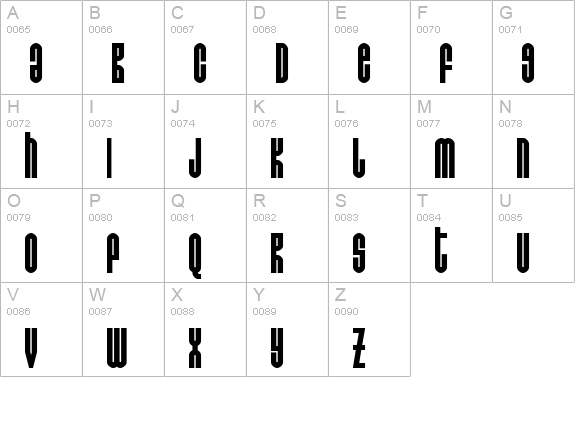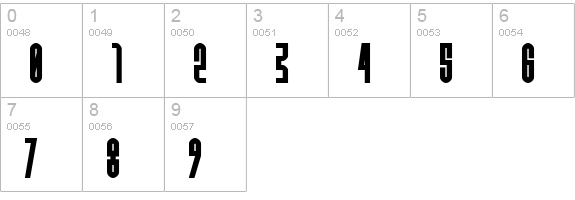
Do not eat this Fat Font Details
Do not eat this Fat font is a bold and eye-catching typeface that demands attention. With its chunky letterforms and unique design, this font is perfect for making a statement in your designs. Despite its name, Do not eat this Fat font is completely free to download at FontsMarket.com. Whether you're looking to add a touch of personality to your posters, logos, or social media graphics, this font is sure to make a lasting impression. Embrace the boldness and creativity of Do not eat this Fat font today!